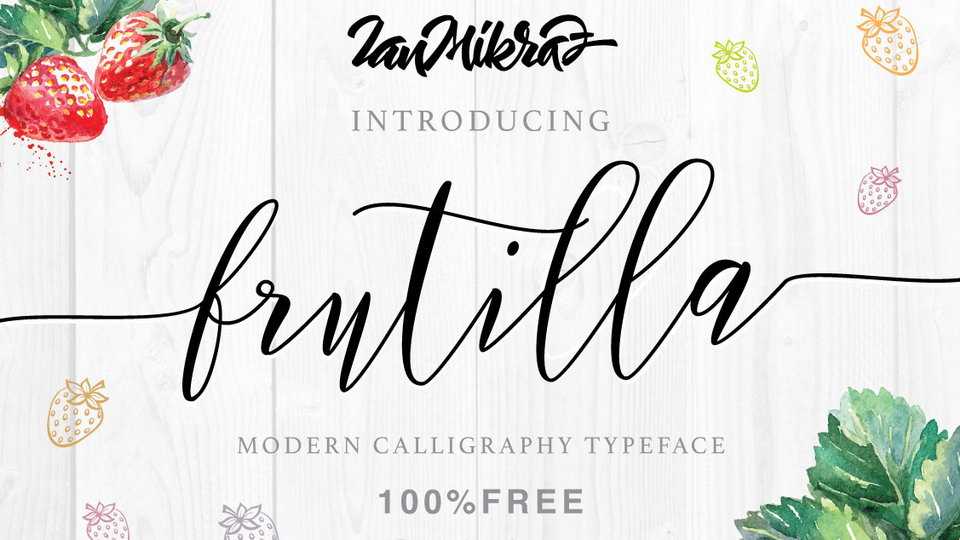
Download Frutilla font, a lovely modern calligraphy script. Suitable for apparel brand, any greeting cards, painting design style, or any design that needs natural and personal touch.
Designer: Ian Mikraz